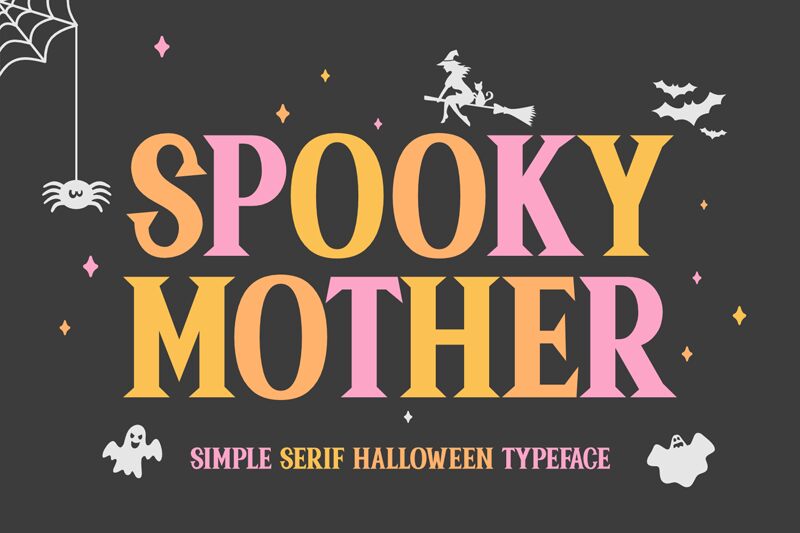
Spooky Mother font by keithzo is a free font with classic charm, inspired by Victorian elements. It incorporates decorative details and elegant curves which add to its festive holiday style. A theatrical appearance with a touch of creepiness makes this timeless typography suitable for various old-fashioned or ghostly designs. The font whose letters are shaped with care holds a certain classic charm that can be employed for use in both modern and vintage environments.
The whimsical font makes for an interesting choice in projects related to arts and crafts, fashion, theater, books, blogging, games, sports, and travel. Use it for anything festive like gift wrappings, cards, stickers, labels, apparel print, or posters. The possibilities are limitless and so is its applicability to any of your eclectic personal design ideas.